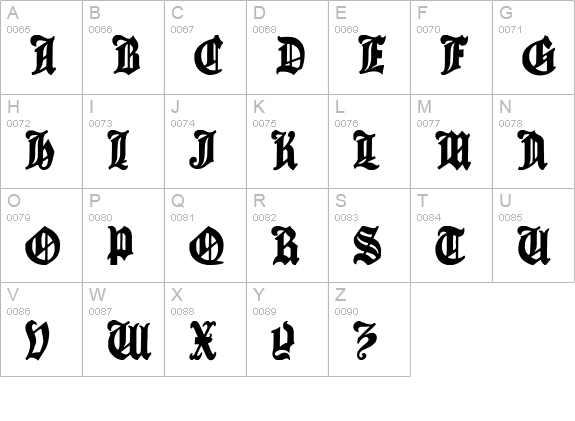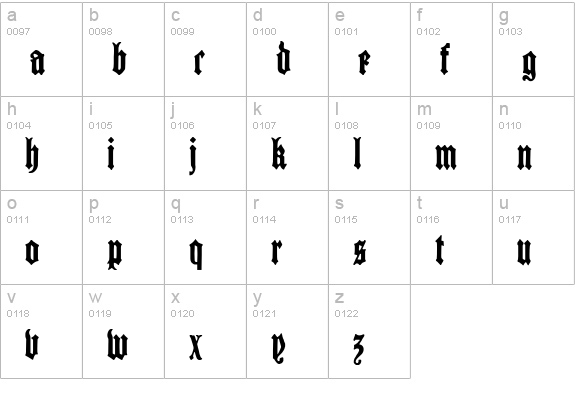
Cantebriggia Font Details
Cantebriggia is a beautifully crafted font that exudes elegance and sophistication. With its delicate curves and stylish letterforms, this font is perfect for adding a touch of class to any design project. Whether you are creating invitations, logos, or branding materials, Cantebriggia is sure to make a lasting impression. What sets Cantebriggia apart is not only its timeless design but also the fact that it is free to download. That's right, you can get your hands on this stunning font at no cost from FontsMarket.com. So why wait? Elevate your designs with the exquisite charm of Cantebriggia today!